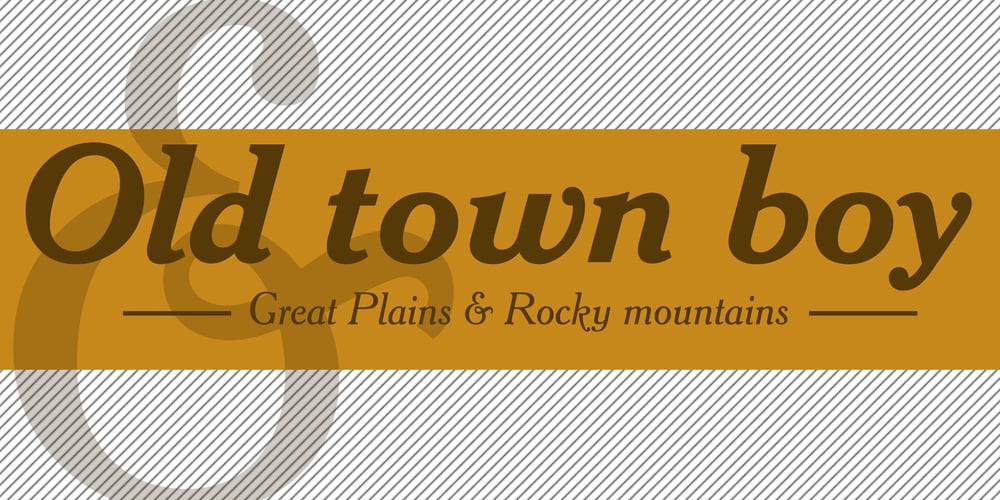
Cheltenham
Cheltenham font
Cheltenham Font Family was designed by Hannibal Ingalls Kimball, Morris Fuller Benton, Bertram G. Goodhue and published by Bitstream. Cheltenham contains 9 styles and family package options. Daniel Berkeley Updike seems to have stimulated the architect Bertram G. Goodhue to design the prototype in 1896 for Ingalls Kimball at the Cheltenham Press. Six years later Morris Fuller Benton at ATF developed it into the design and then the series that we know today. “Owing to certain eccentricities of form,” writes Updike, “it cannot be read comfortably for any length of time.” But he concludes: “It is, however, an exceedingly handsome letter for ephemeral printing.” Mergenthaler bought composing machine rights to the original design c. 1896, but bought the Benton design in 1904.